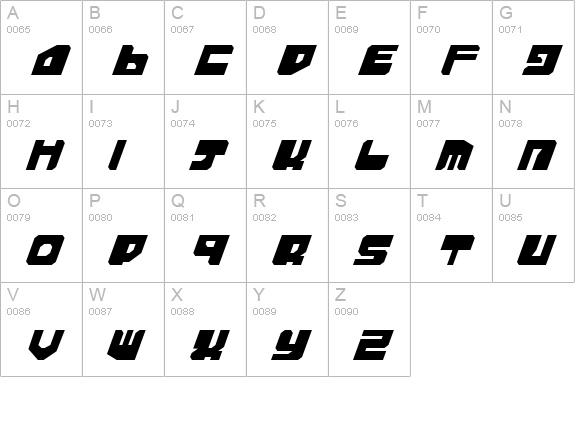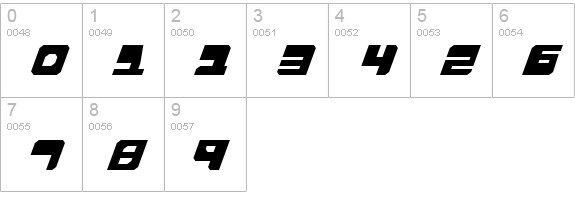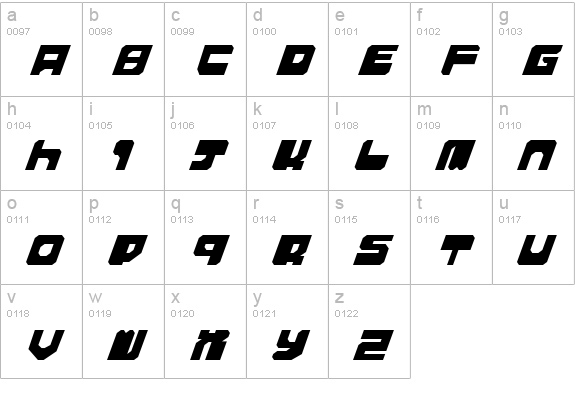
Extechchop Font Details
Extechchop font is a bold and modern typeface that exudes a sense of strength and confidence. Featuring sharp edges and clean lines, this font is perfect for making a statement in your designs. Whether you're creating posters, logos, or branding materials, Extechchop font will bring a dynamic and edgy touch to your projects. And the best part? Extechchop font is completely free to download at FontsMarket.com. This means you can easily access this striking font and incorporate it into your work without any cost. Don't miss out on the opportunity to add Extechchop font to your font library and enhance your designs with its powerful aesthetic.